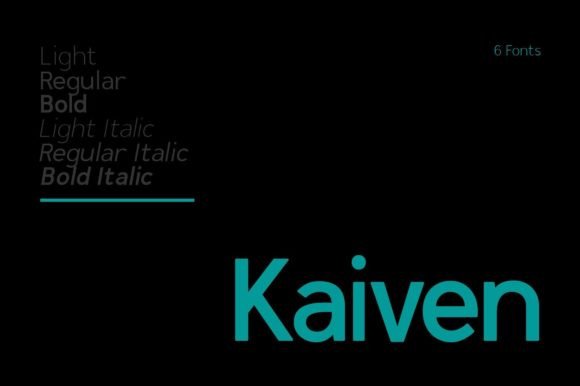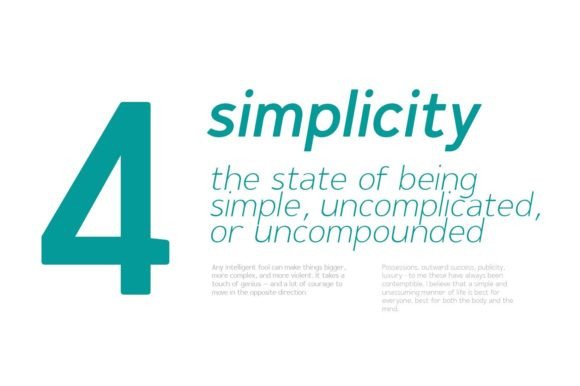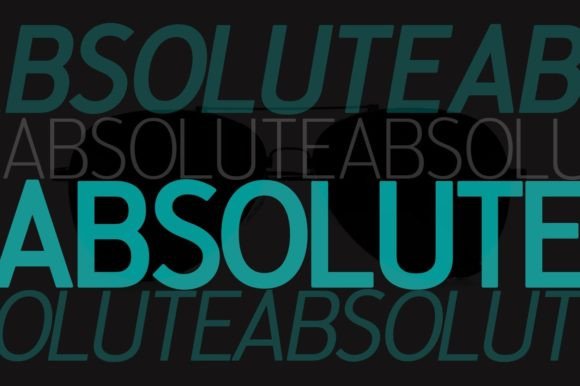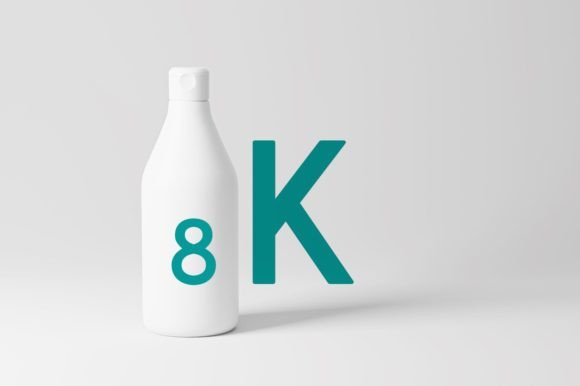
Kaiven Font: Clean & Modern Sans Serif for Logo Design & Branding
About the Kaiven Font
Step up your design game with Kaiven Font, a font that exudes confidence and style. Kaiven is a very simple sans serif font. This font is so versatile that it can easily be used for any purpose. This font comes with three types of thickness, namely light, regular and bold.
Kaiven’s clean lines and three weight options make it ideal for headlines, short text blocks on websites, and branding applications requiring a modern, minimalist aesthetic. It works well on posters and packaging where readability at larger sizes is key. However, its simplicity might make it less suitable for lengthy body text or UI elements requiring high legibility at smaller sizes.
Its neutral personality pairs well with both serif and script fonts. Consider pairing Kaiven Regular with a classic serif like Garamond for a sophisticated contrast, or use Kaiven Bold with a playful script like Pacifico for a more energetic feel. For a purely modern aesthetic, pairing it with a geometric sans-serif such as Futura would create a cohesive and contemporary look.
Kaiven projects a clean, friendly, and approachable yet modern feel, making it suitable for brands aiming for a sense of simplicity and trustworthiness. Avoid using it in projects that demand strong visual drama or require exceptionally high readability in small sizes.
Kaiven Font Usage Examples
Kaiven Font Example